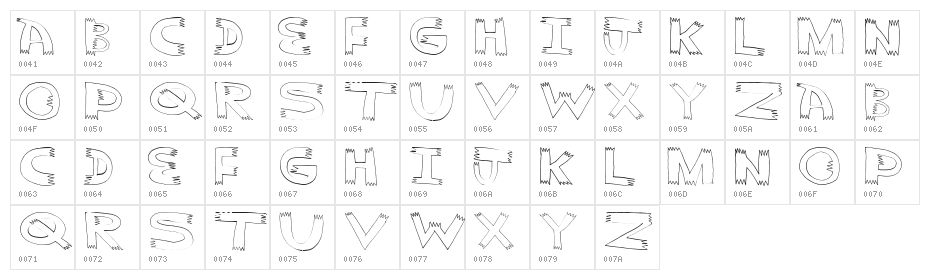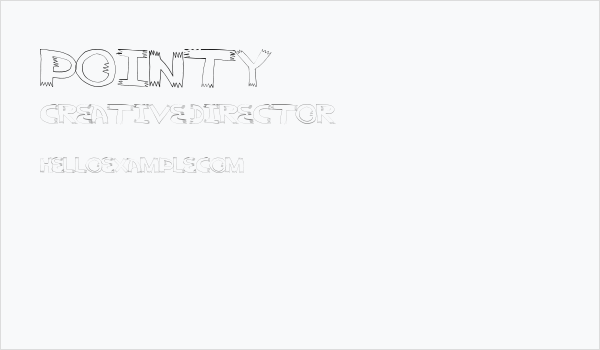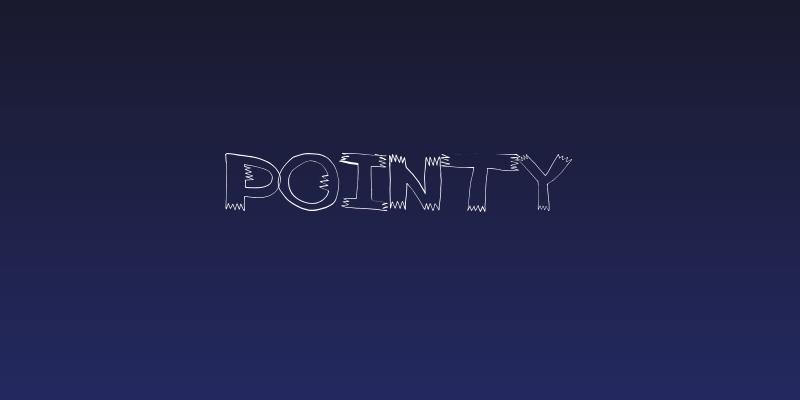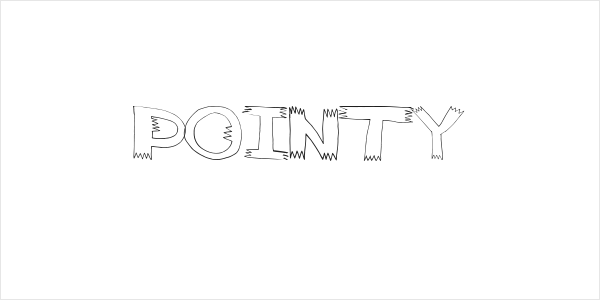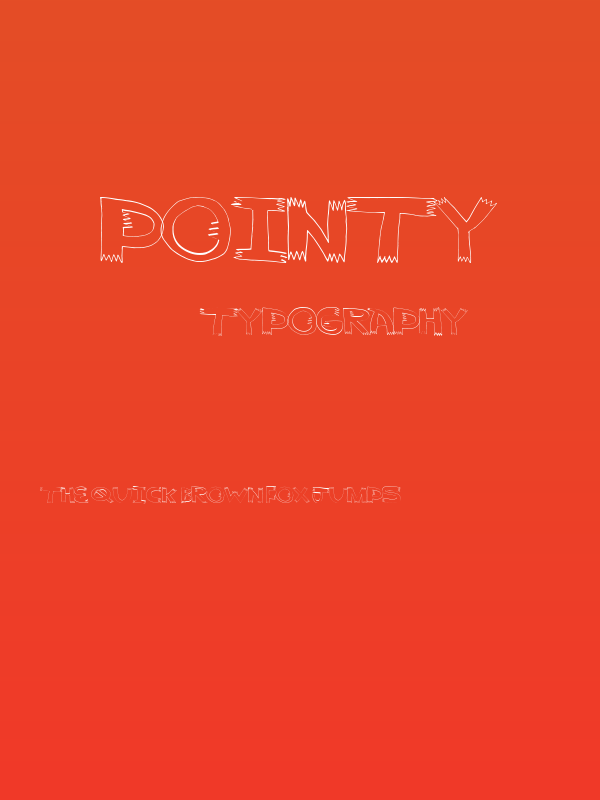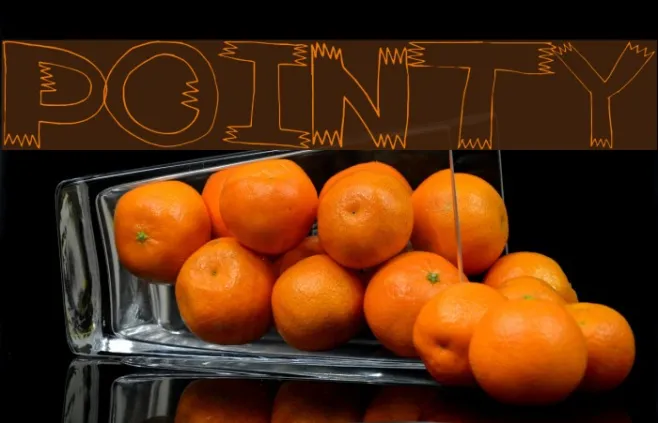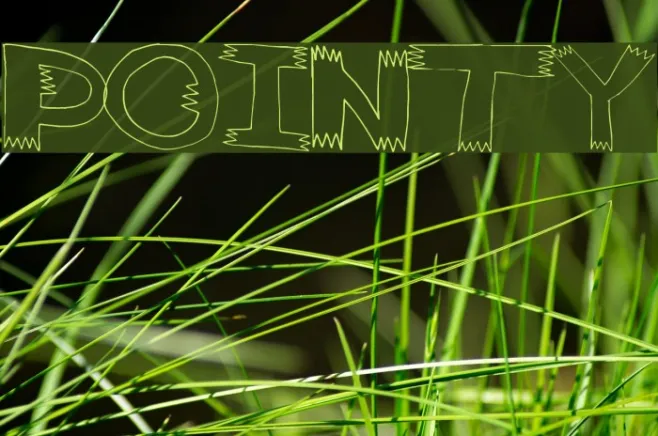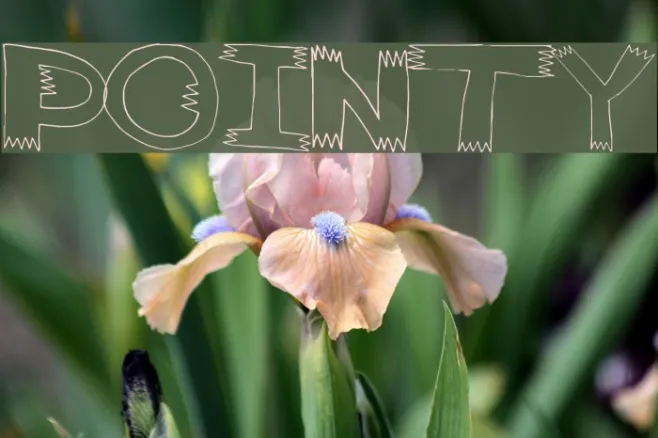
pointy Font
pointy Description
This font features a unique and edgy design with jagged, pointy edges that give it a dynamic and energetic appearance. The characters are bold and have a hand-drawn feel, with irregular strokes that add to its playful and informal style. The uppercase letters are particularly striking, with exaggerated angles and sharp points that make them stand out. The font has a consistent weight throughout, providing a cohesive look while maintaining its distinctive character. It's perfect for projects that require a bold statement or a touch of creativity.
| Proposed Projects | Ideal for posters, album covers, comic book titles, or any creative project needing a bold, dynamic font. |